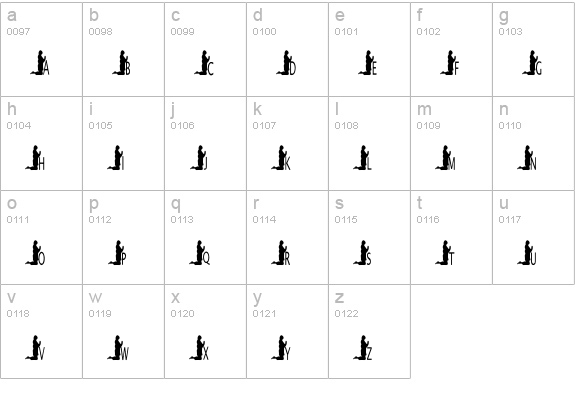
I am Every Woman Font Details
Introducing "I am Every Woman" font, a stunning and versatile typeface that embodies the essence of femininity and empowerment. This font is a celebration of women from all walks of life, showcasing their strength, grace, and uniqueness. "I am Every Woman" font is designed with meticulous attention to detail, featuring elegant curves and delicate strokes that exude sophistication and beauty. It effortlessly captures the essence of femininity, making it the perfect choice for any project that aims to empower and inspire. With its wide range of characters and glyphs, "I am Every Woman" font offers endless possibilities for creative designs. It is ideal for branding, logo design, fashion magazines, beauty blogs, and so much more. Whether you are aiming for a bold statement or a subtle touch of elegance, this font has got you covered. But what makes "I am Every Woman" font truly exceptional is that it is freely available to download at FontsMarket.com. Yes, you read that right! This incredible font can be yours without any charge, allowing you to unleash your creativity without breaking the bank. So why wait? Download "I am Every Woman" font today and let your designs speak volumes about the power and beauty of every woman. Get ready to make a statement and inspire others with this captivating typeface.